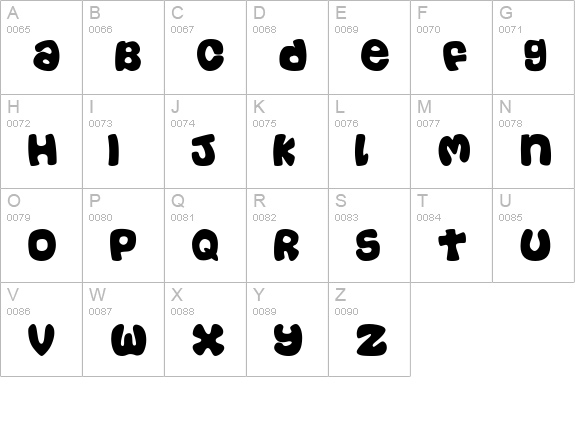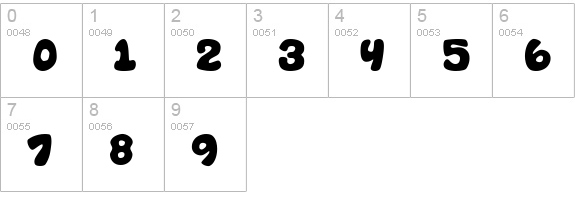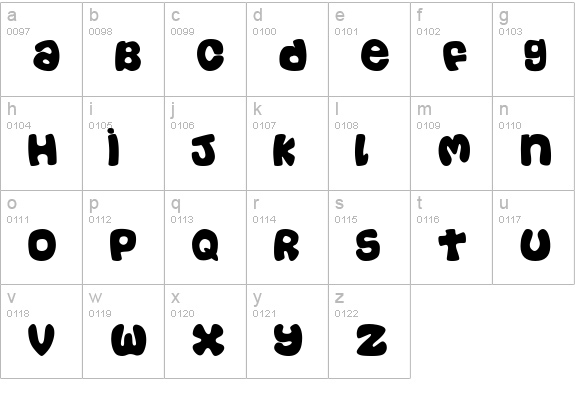
TR Casual Font Details
Introducing TR Casual font, a charming and versatile typeface that exudes a casual and modern vibe. With its clean lines and rounded edges, TR Casual is perfect for adding a touch of friendliness and approachability to your designs. Whether you're working on a fun project or aiming for a laid-back aesthetic, this font is sure to enhance your creativity. The best part? TR Casual is available for free download at FontsMarket.com. So go ahead and give your projects a fresh and contemporary look with this stylish font. Let TR Casual be your go-to choice for creating eye-catching designs that stand out from the crowd.